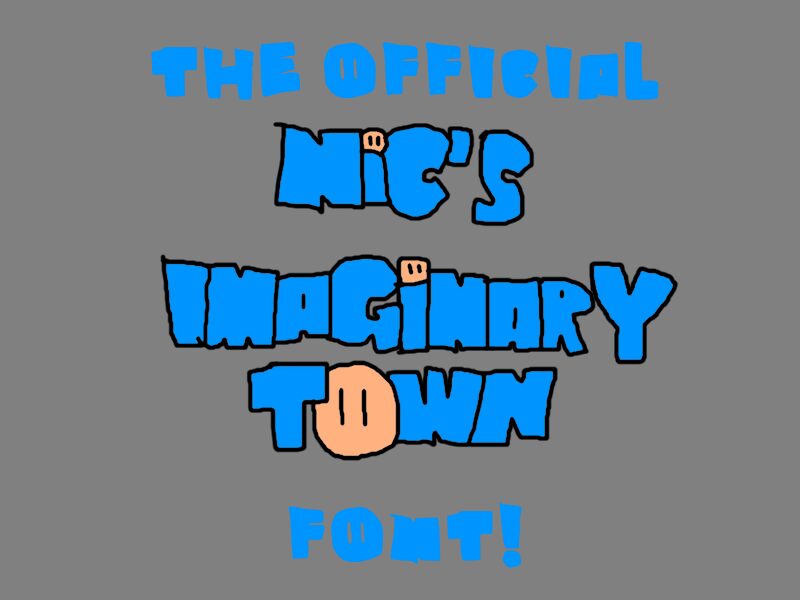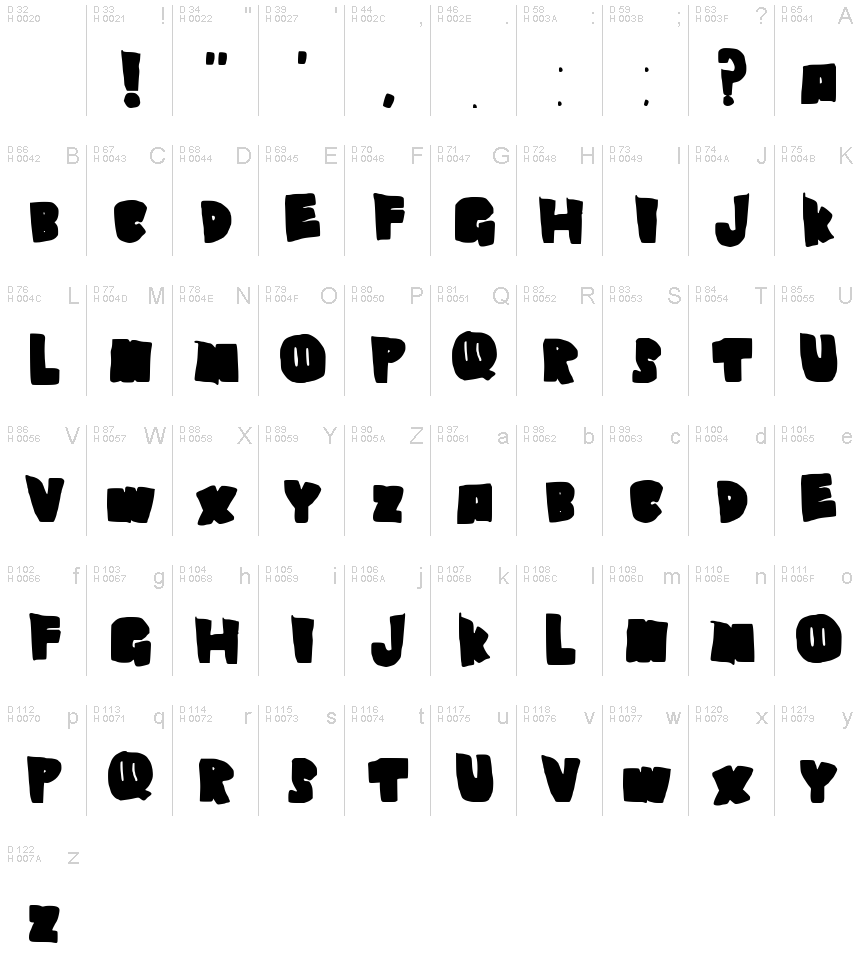
Nictown Regular
Nictown, a bold and playful display font crafted by captainbob321, exudes a captivating charm that instantly commands attention. With its rounded, cartoon-inspired letterforms and distinctive flair, this font radiates a sense of whimsy and lightheartedness, making it an alluring choice for projects seeking to evoke a fun, nostalgic atmosphere.
The font's sturdy, oversized structure and confident strokes lend it a strong, eye-catching presence, making it an ideal selection for headlines, logos, and other prominent design elements. Nictown's versatility allows it to seamlessly integrate into a variety of contexts, from playful children's publications to retro-inspired branding, adding a dose of personality and character to any design.